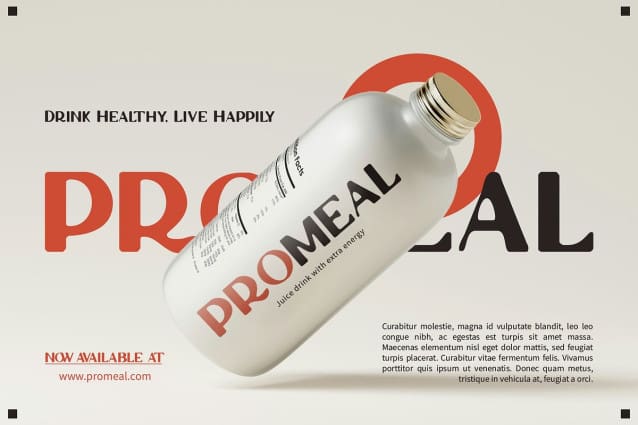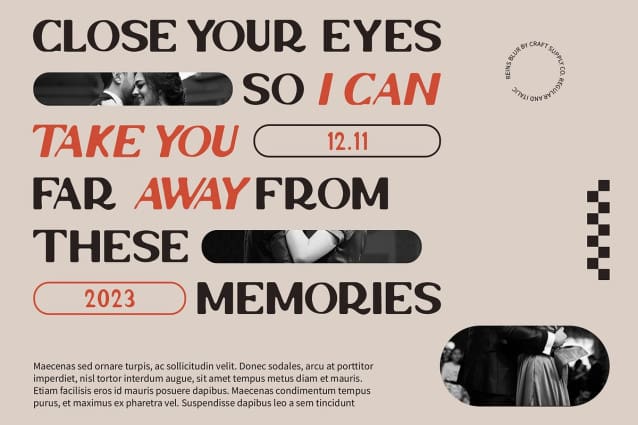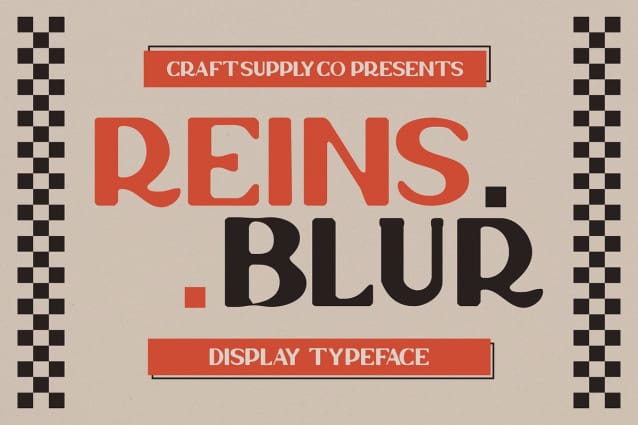
Reins Blur Font
Reins Blur Font is a modern serif font that epitomizes elegance with a distinctive blur effect, enhancing its smooth lines and conveying a luxurious and tidy impression. This design merges sophistication with an artistic flair, perfect for projects seeking a refined yet creatively experimental typographic solution.
The blur effect in Reins Blur adds an artistic and unique touch, making it ideal for designs that prioritize an elegant appearance while incorporating bold and experimental elements. Whether used in high-end branding, editorial layouts, or artistic posters, this font captivates with its blend of elegance and creativity.
Reins Blur offers versatility across various design applications, from sleek corporate identities to avant-garde artistic expressions. Its ability to harmonize elegance with creativity makes it a compelling choice for designers looking to make a sophisticated yet impactful statement in their projects.